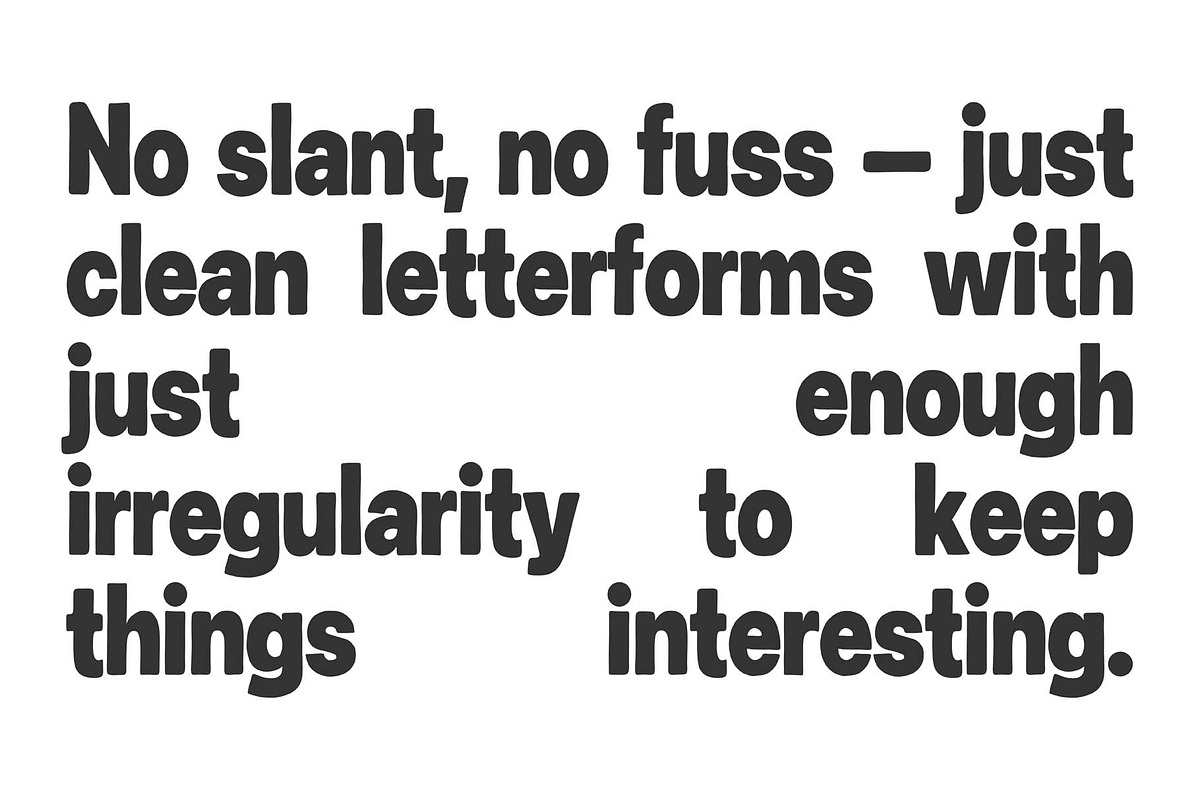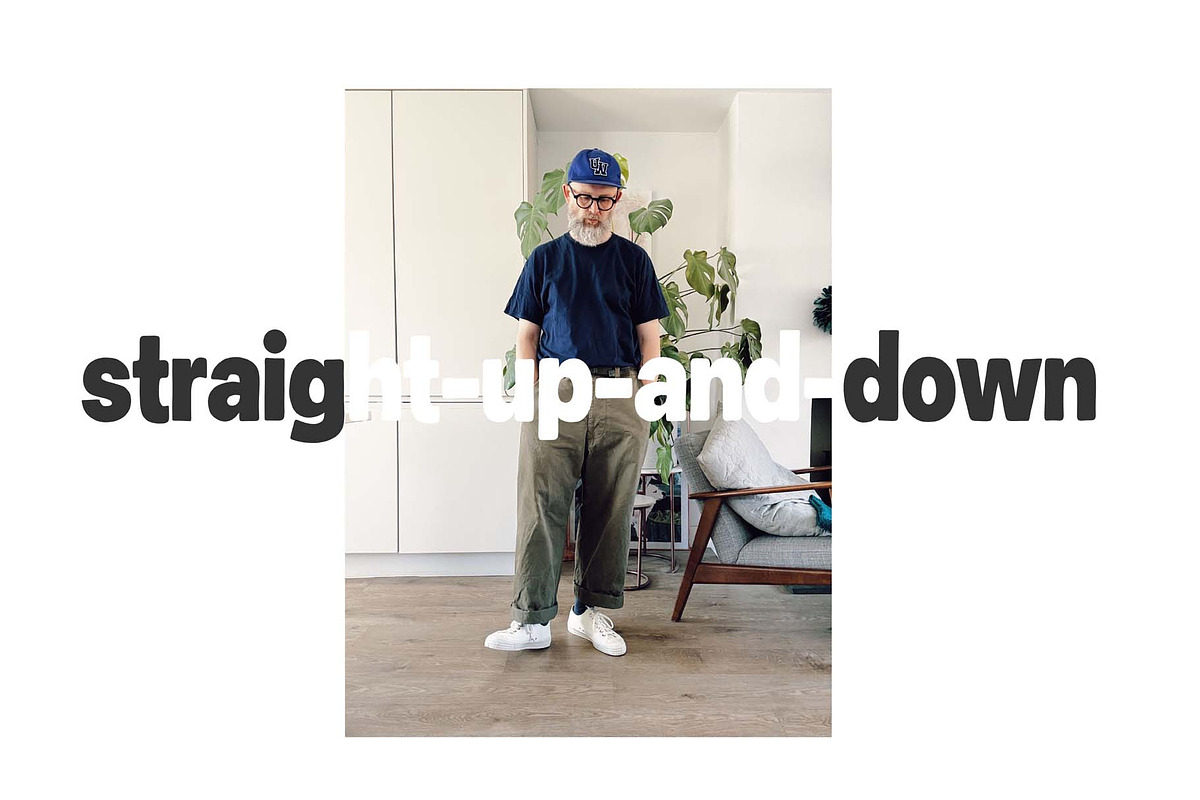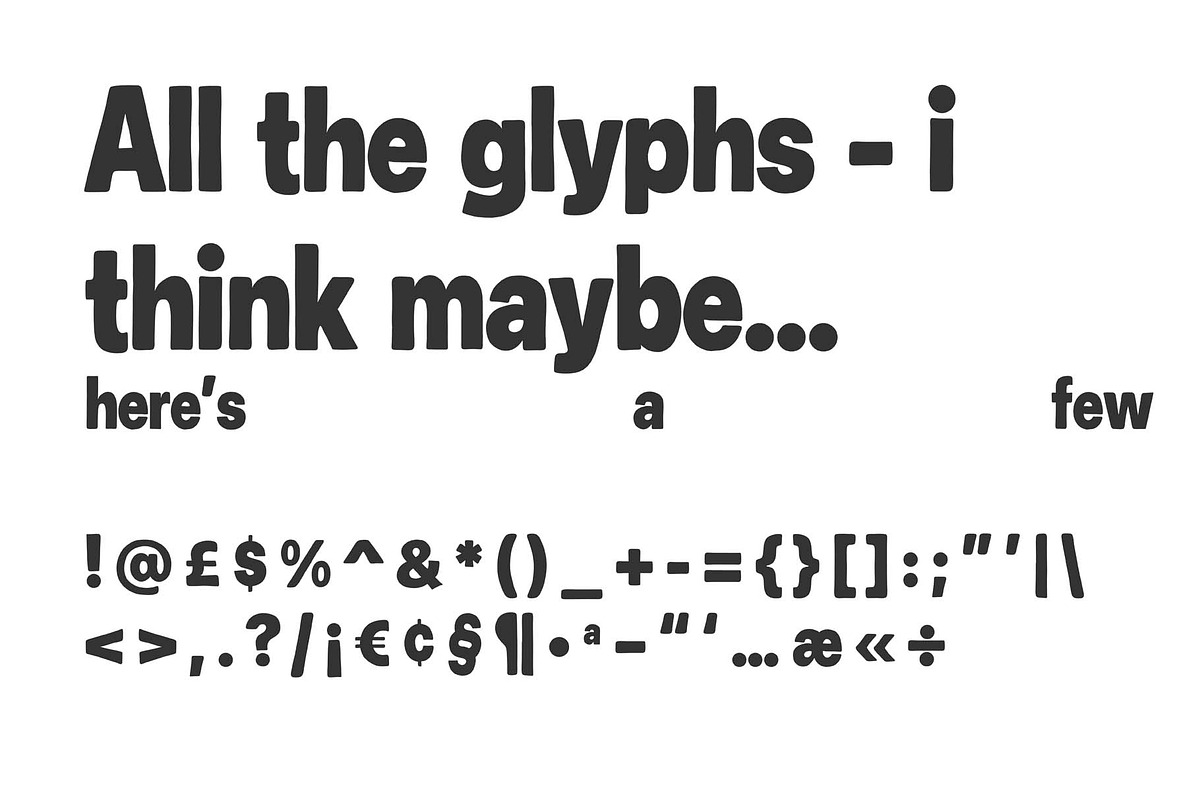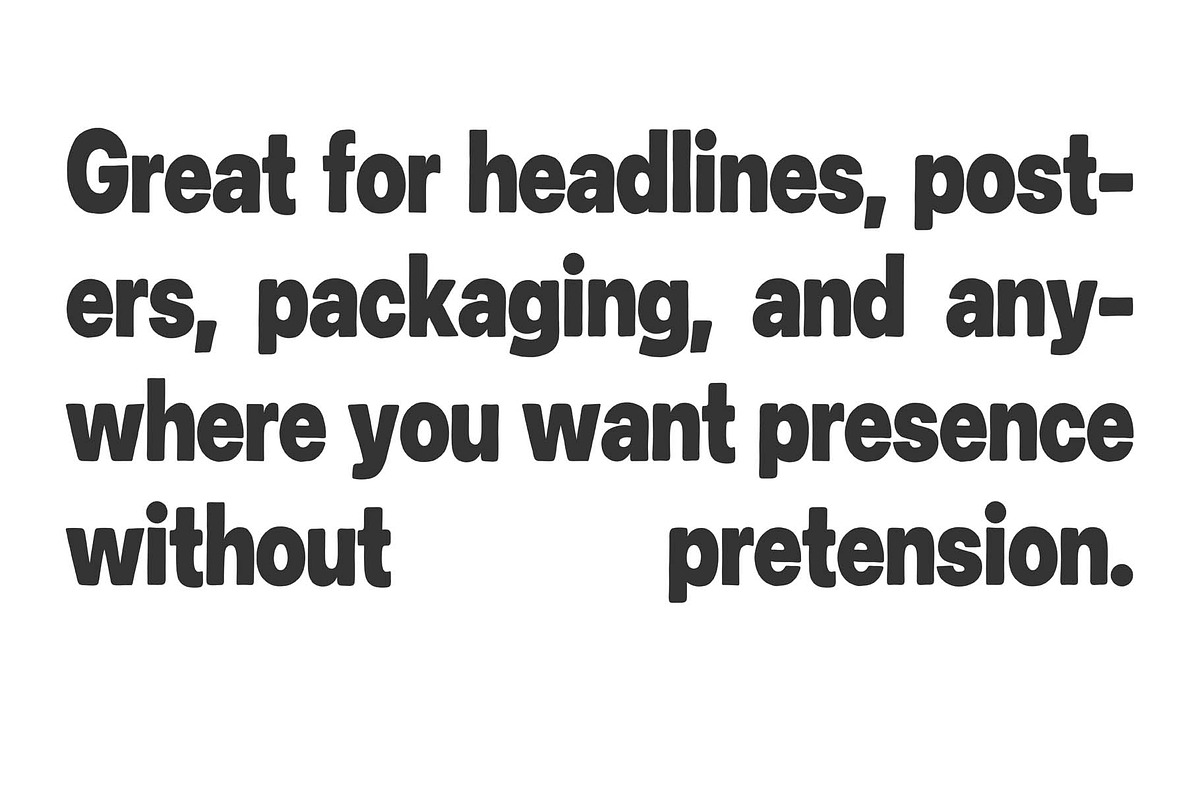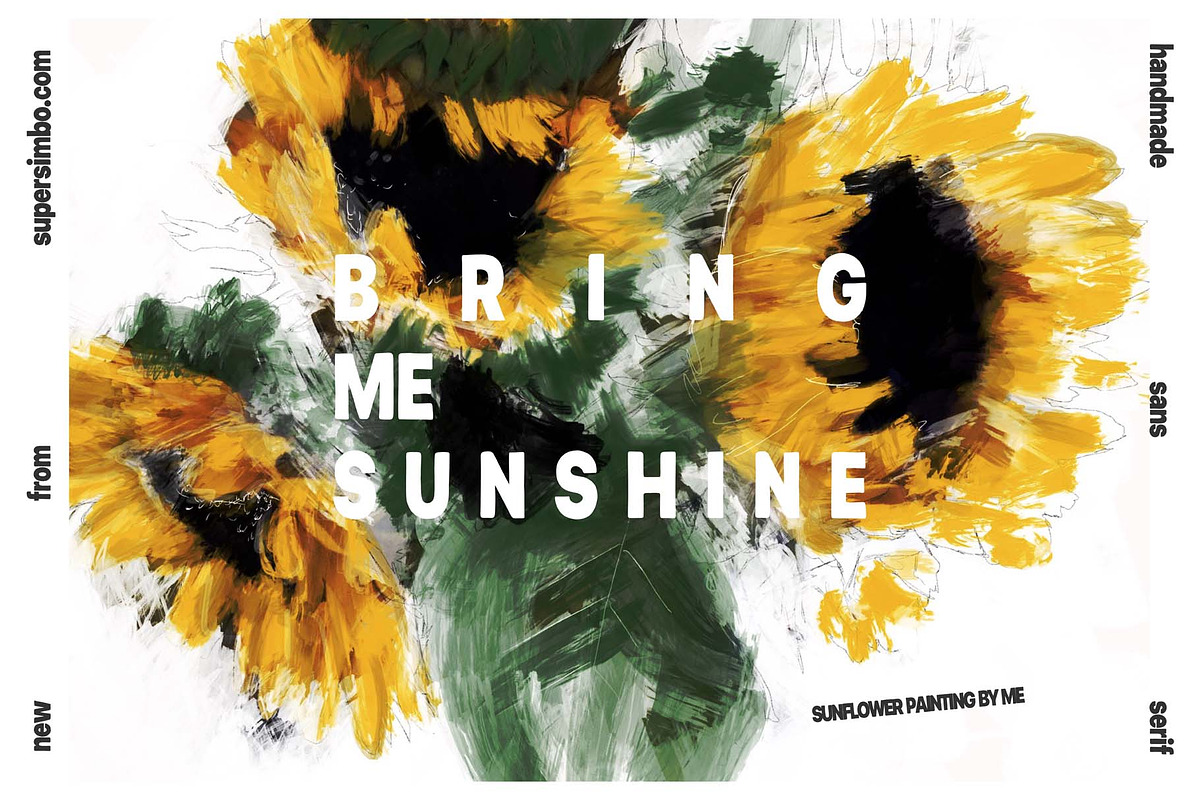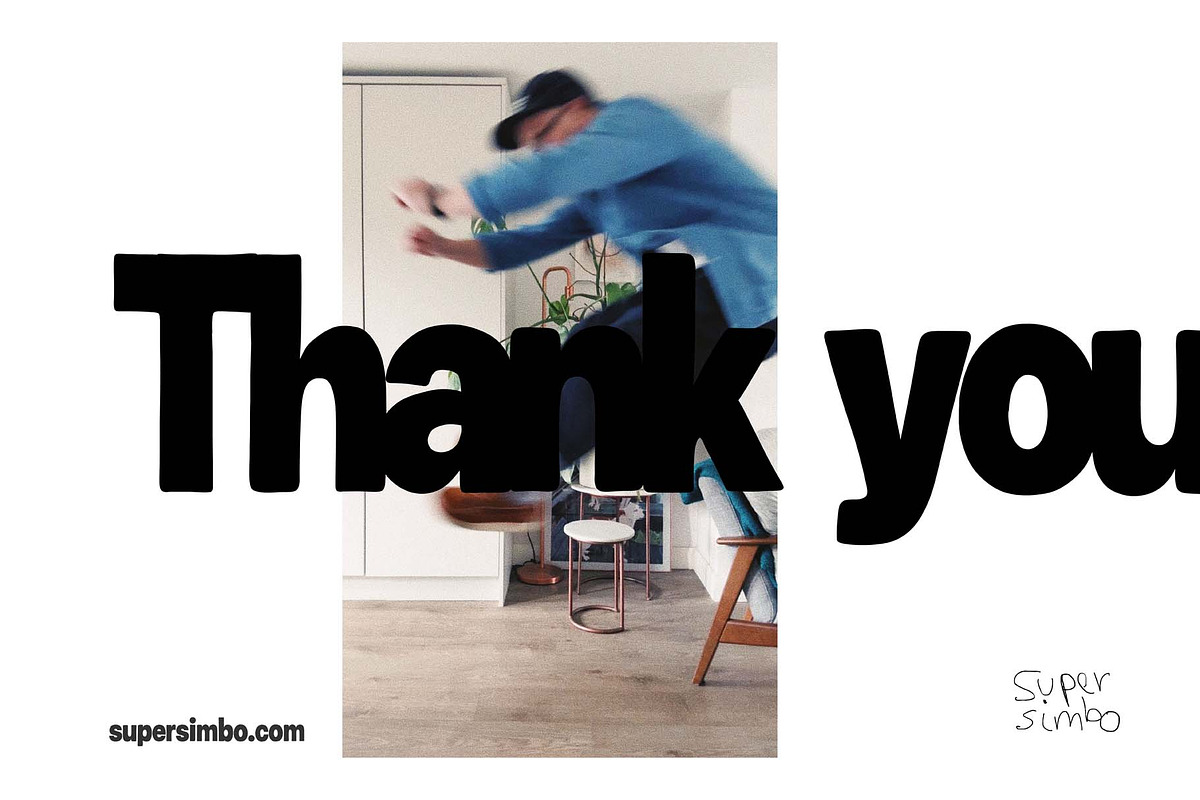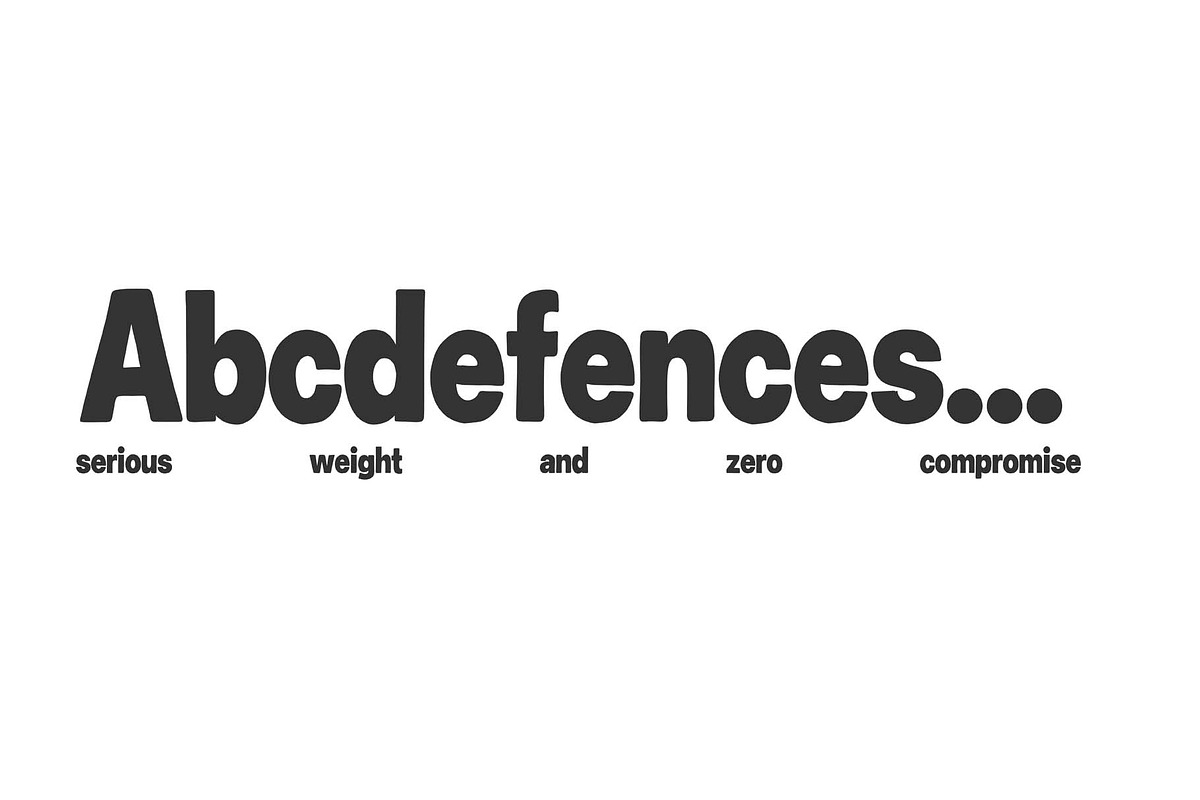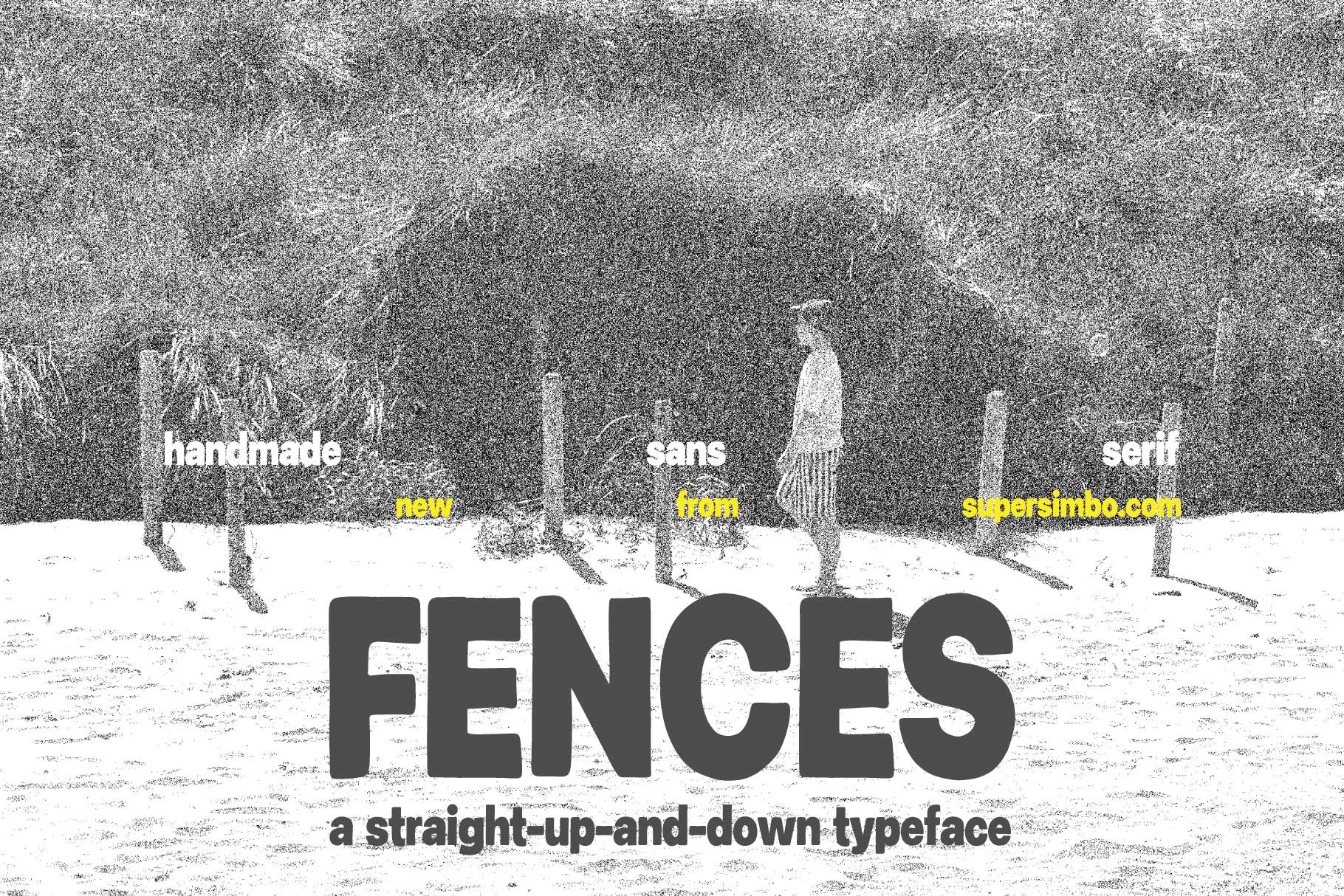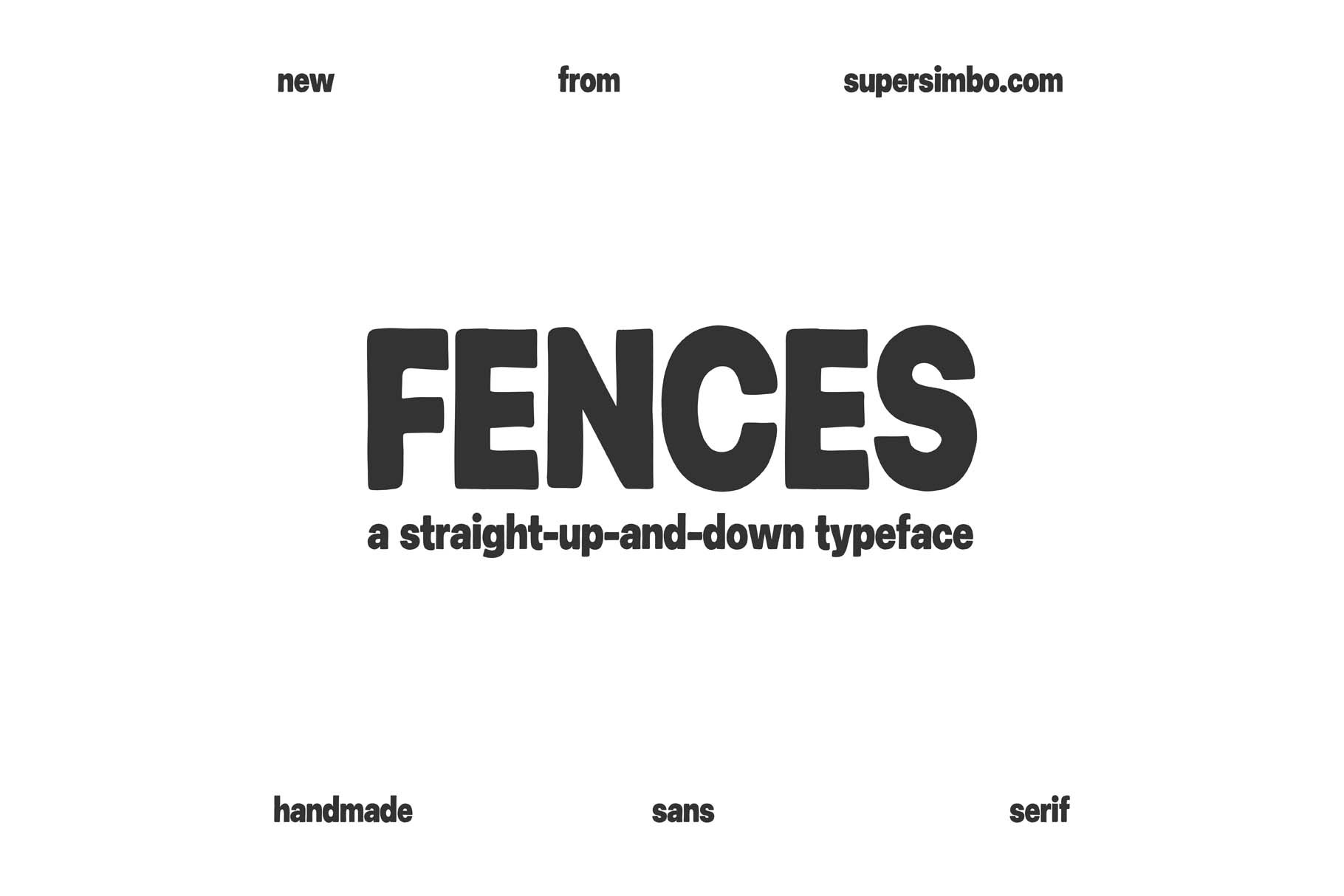
Fences - handmade sans typeface
Fences is a hand-drawn sans serif with attitude.
Serious weight and zero compromise.
Bold, upright, and unapologetically chunky, it's built on a strict vertical axis with a warmth that only comes from the hand. No slant, no fuss — just clean letterforms with just enough irregularity to keep things interesting.
Great for headlines, posters, packaging, and anywhere you want presence without pretension.
Straight-up-and-down.